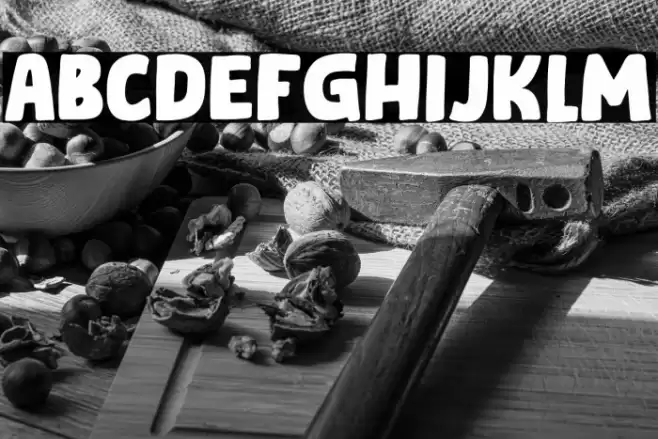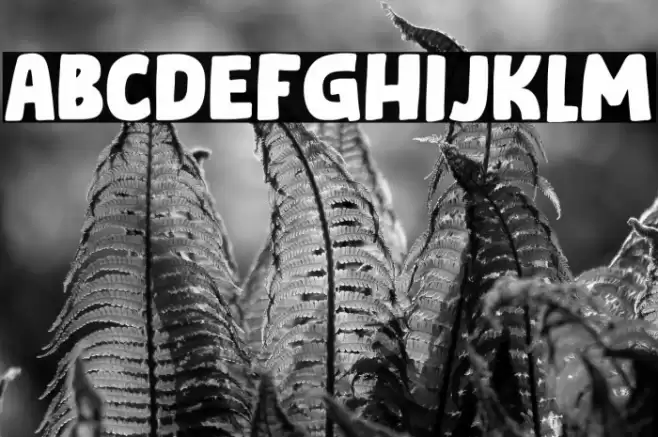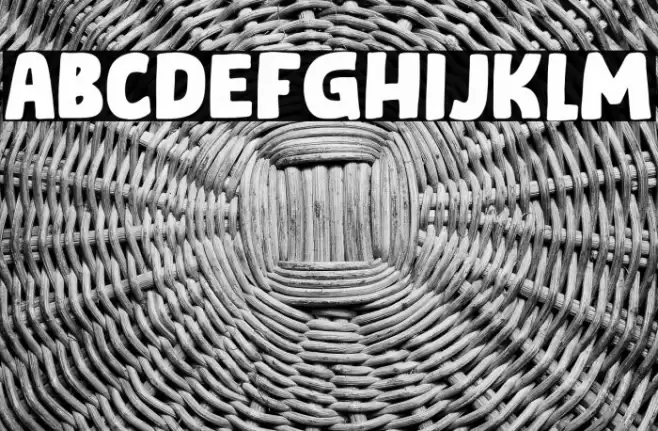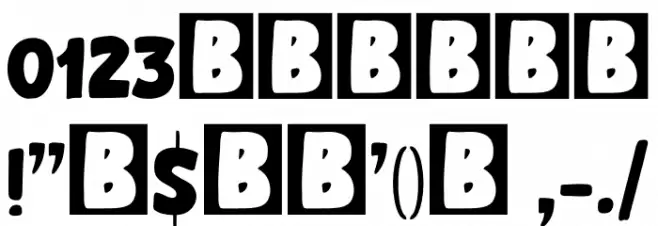
Square Beat DEMO Font
Square Beat DEMO Description
This font features a bold and playful style with rounded edges and a slightly irregular form, giving it a hand-drawn appearance. The uppercase and lowercase letters are well-balanced, with a consistent thickness throughout. The numbers and special characters maintain the same playful aesthetic, making them suitable for creative projects. The overall look is friendly and approachable, ideal for designs that require a touch of whimsy and fun.
A bold, playful font with rounded, hand-drawn characters from Cartoon fonts.
- Proposed Projects: Ideal for children's books, playful branding, posters, and creative social media graphics.
- Overall Style: Playful, Hand-drawn